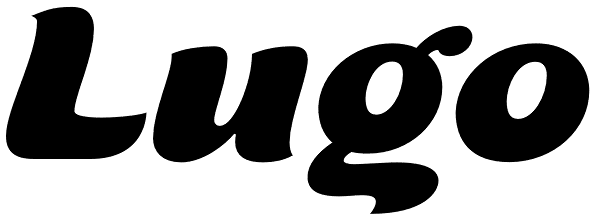
Lugo
The font "Lugo" is a heavy typeface designed for use in headlines and caption text. Their design has a strong visual impact, a persuasive and seductive personality throughout its organic shapes. This is a versatile and expressive font. Lugo can...